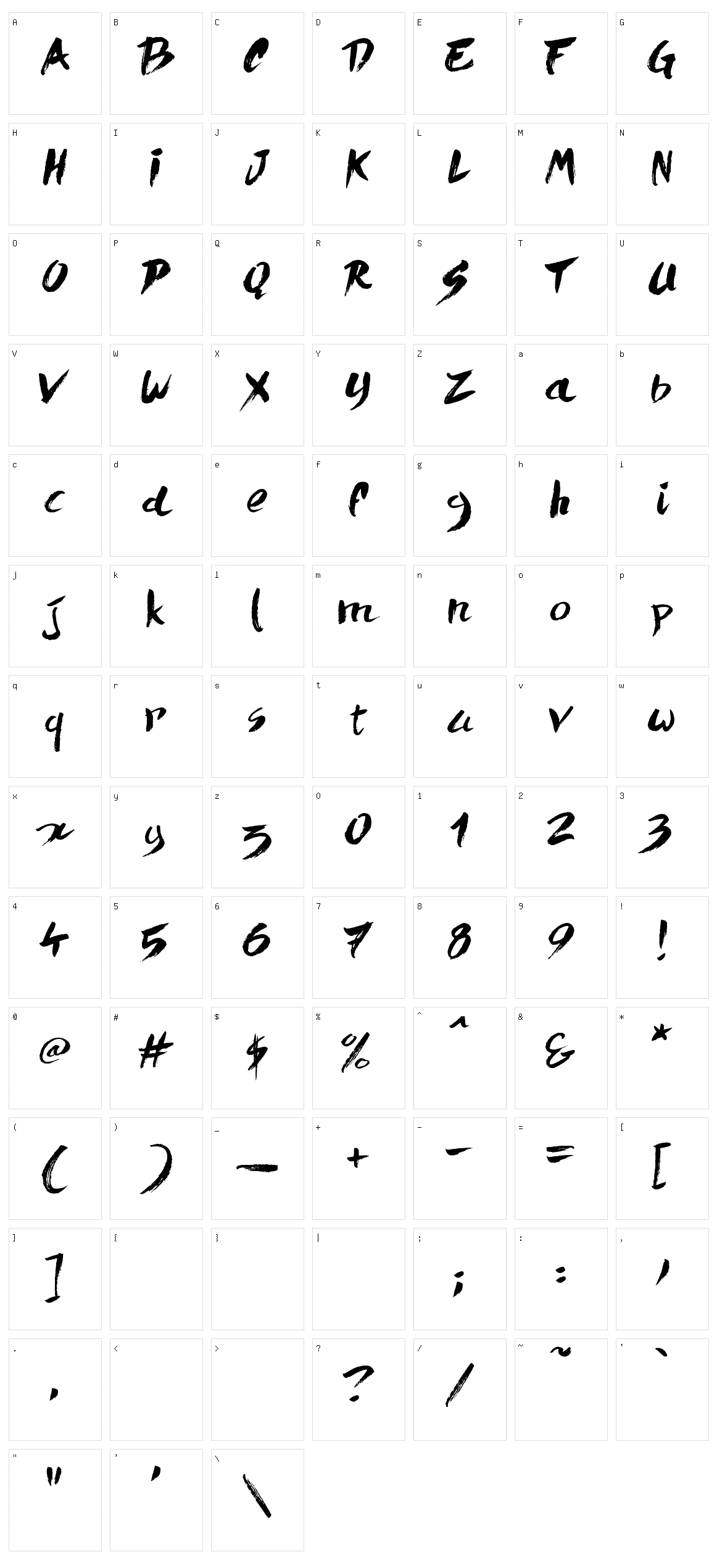
The free font Quick Menu Boards is carefully designed by imagex, showcasing a thoughtful balance of creativity and usability and falls under the Script font style. When you download the ZIP file, it contains only 62.94 KB of font files, making it lightweight and quick to download. Please review the license details below to understand permitted usage and distribution rights. If license information is not available, we recommend using this font for personal projects only or contacting the author directly for commercial usage permissions.